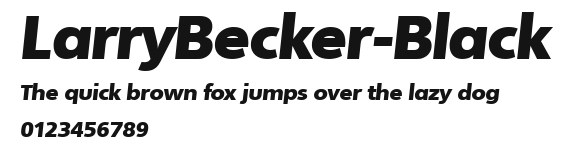
• Font Name: LarryBecker-Black
About LarryBecker-Black.ttf
LarryBecker-Black.ttf is a modern, elegant sans-serif font designed for ultimate readability and visual harmony. Perfect for branding, headlines, web design, and print materials.